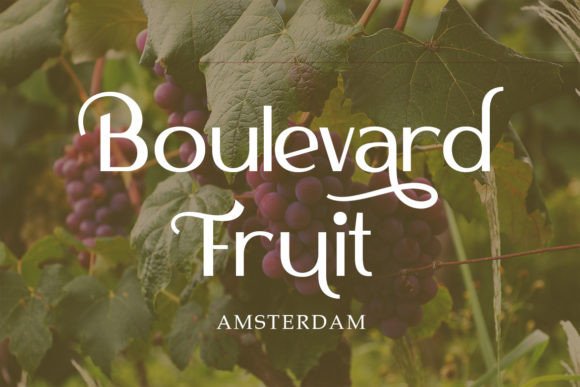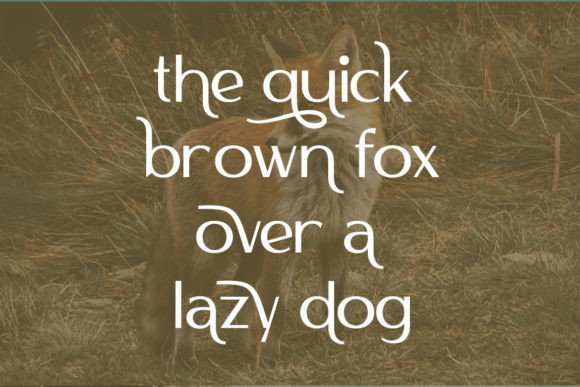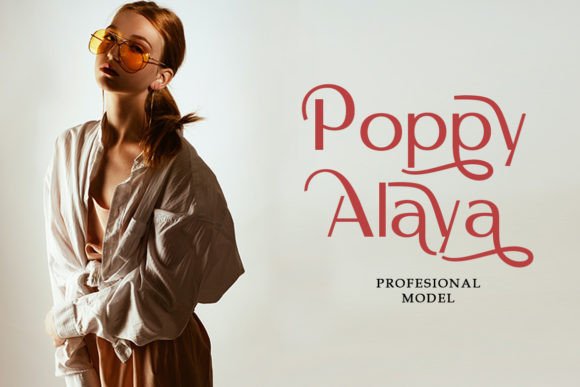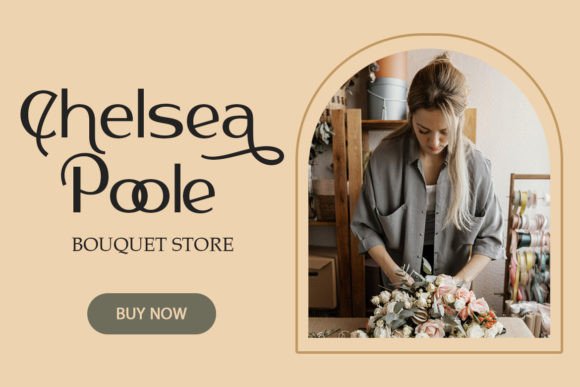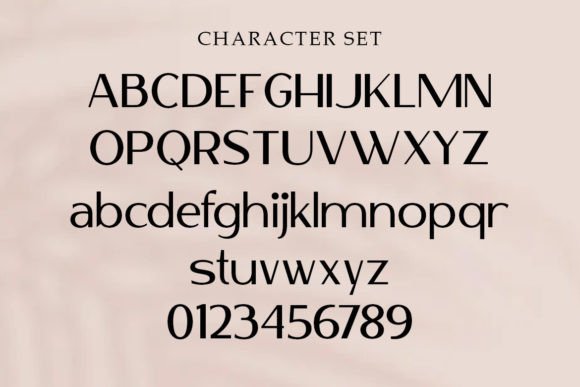
The Retro Revival: Bringing Back the Charm with Bothen Font
I’ll never forget the design project that had me on a font hunt like no other. I was working on a vintage-inspired branding campaign for a client who wanted to evoke the nostalgia of the 1950s. I scoured the internet for the perfect serif font, but nothing seemed quite right. That was until I stumbled upon Bothen Font. With its playfully nostalgic feel and incredible vintage aesthetic, it was love at first sight! ✨
Bothen Font has quickly become a staple in my design toolkit, and for good reason. Here are a few things that make it stand out:
- ✅ Unique Vintage Aesthetic: Bothen Font delivers a distinctive retro look that’s perfect for designs that need a touch of nostalgia.
- ✅ Playful yet Elegant: The font strikes a great balance between playfulness and sophistication, making it versatile for various design projects.
- ✅ Serif Details: The serif details add a level of refinement and classic charm to any text.
Of course, no font is perfect, and Bothen Font has a few minor quirks:
- ⚠️ Limited Use in Body Text: While it’s stunning for headings and titles, it might not be the best choice for lengthy body text due to its decorative nature.
- 🤔 Requires Attention to Kerning: As with many serif fonts, kerning can be a bit tricky, especially at smaller sizes.
The Story Behind Bothen Font: Designer Inspiration
The story goes that Bothen Font was inspired by vintage signposts and classic advertising from the early 20th century. The designer aimed to capture the essence of a bygone era, where typography was not just about readability but also about style and charm. This font is a testament to the enduring appeal of vintage design, bringing a touch of nostalgia to modern projects.
| Font Name | Bothen Font |
| Author | meizzalunadesign |
| What makes Bothen Font unique? | Bothen Font stands out with its playfully nostalgic feel and vintage aesthetic, making it perfect for designs that require a retro touch. |
| Can I use Bothen Font for body text? | While Bothen Font is stunning for headings and titles, it might not be ideal for lengthy body text due to its decorative nature. |
| Is Bothen Font suitable for digital use? | Absolutely! Bothen Font is versatile and can be used in various digital contexts, from websites to social media graphics. |
| Are there any similar fonts to Bothen Font? | Yes, some similar fonts include Rochester, Playfair Display, Lora, and Merriweather. Each offers a unique take on vintage typography. |